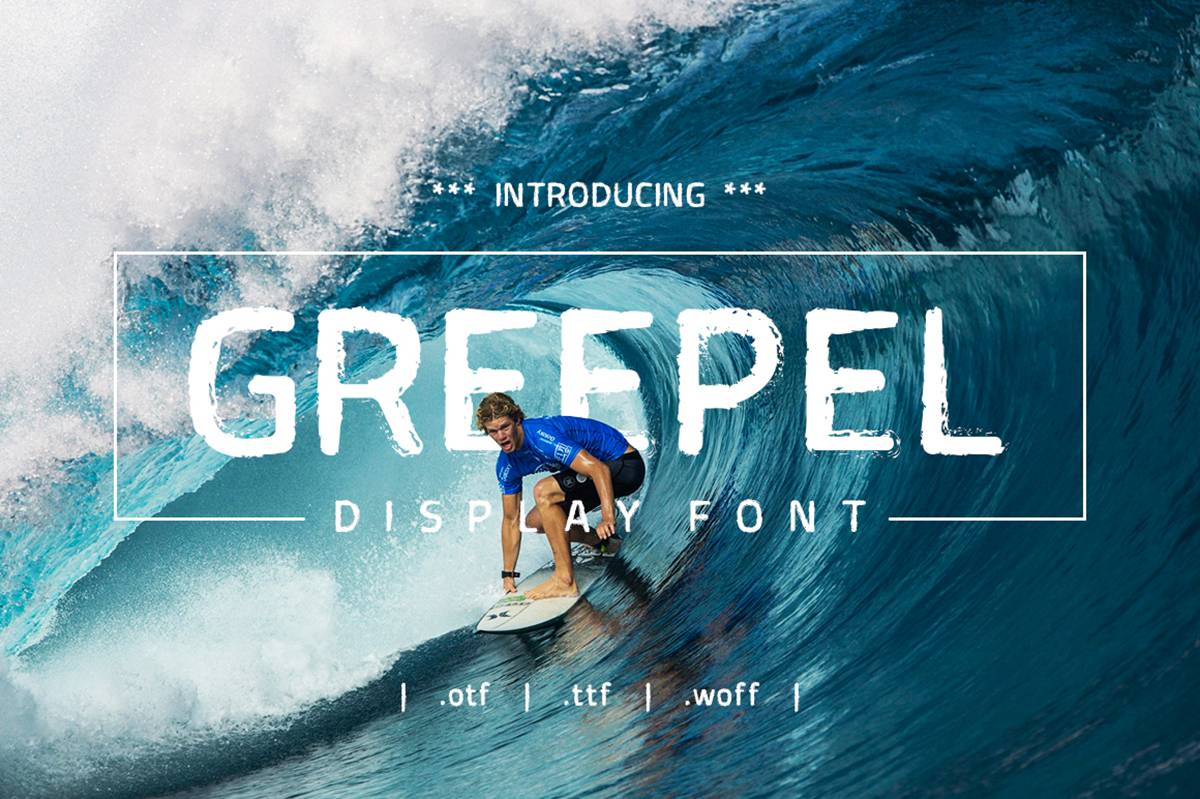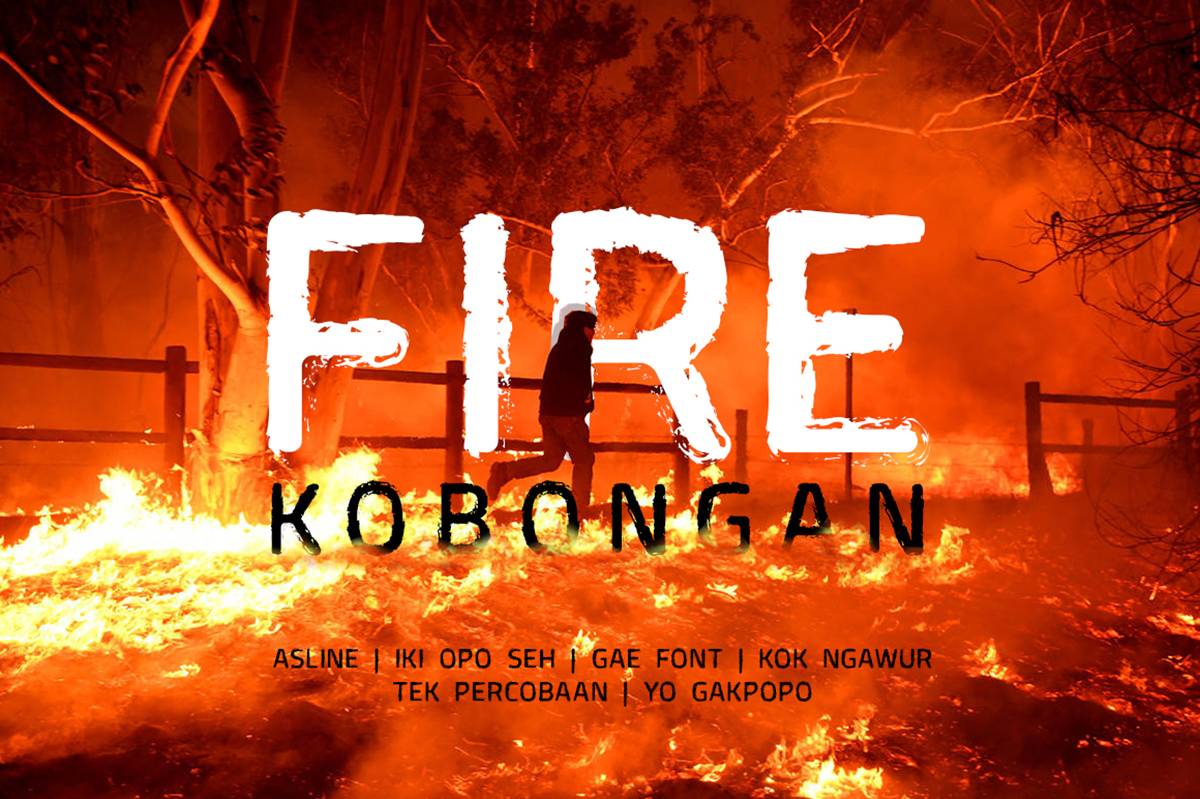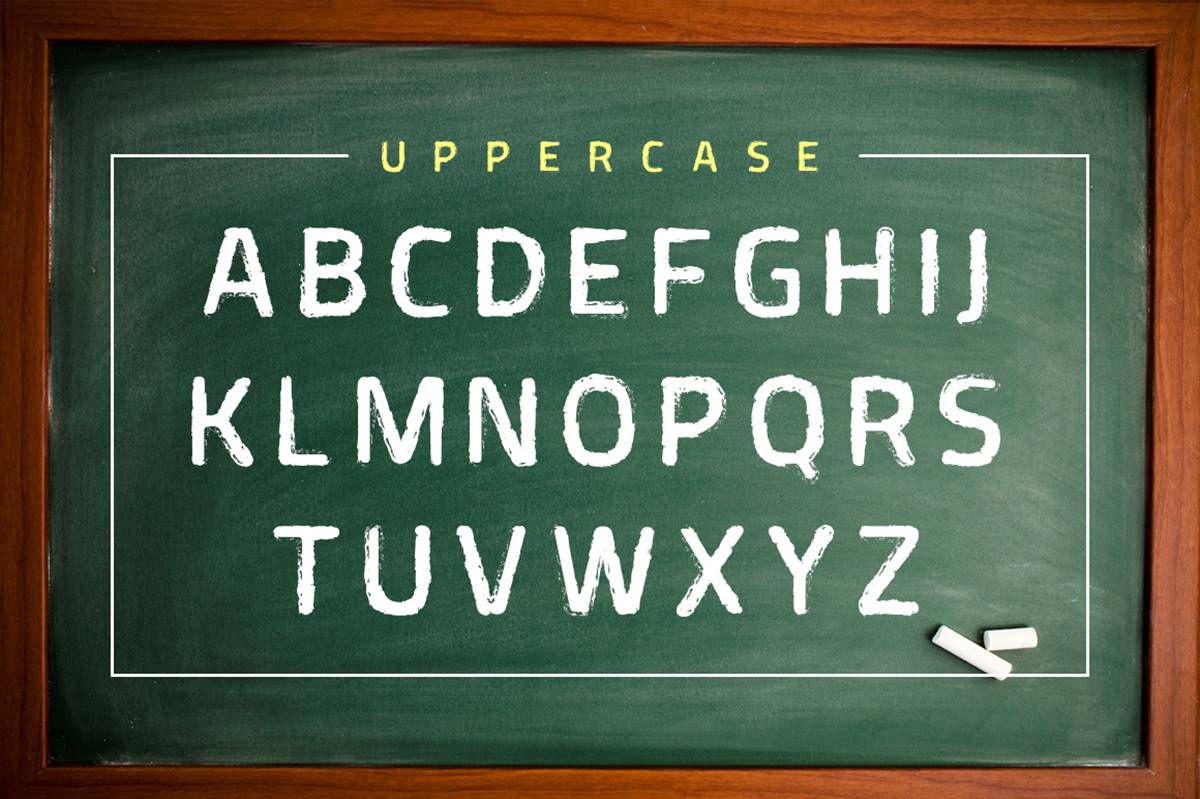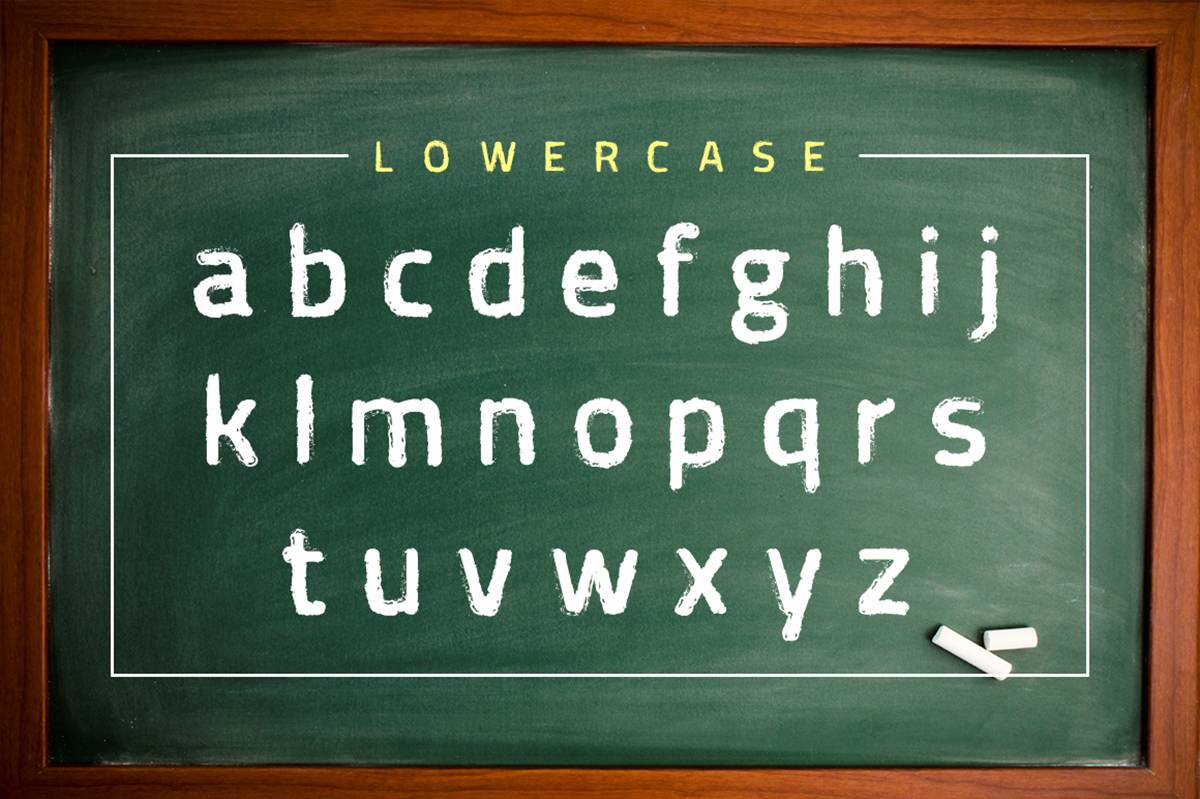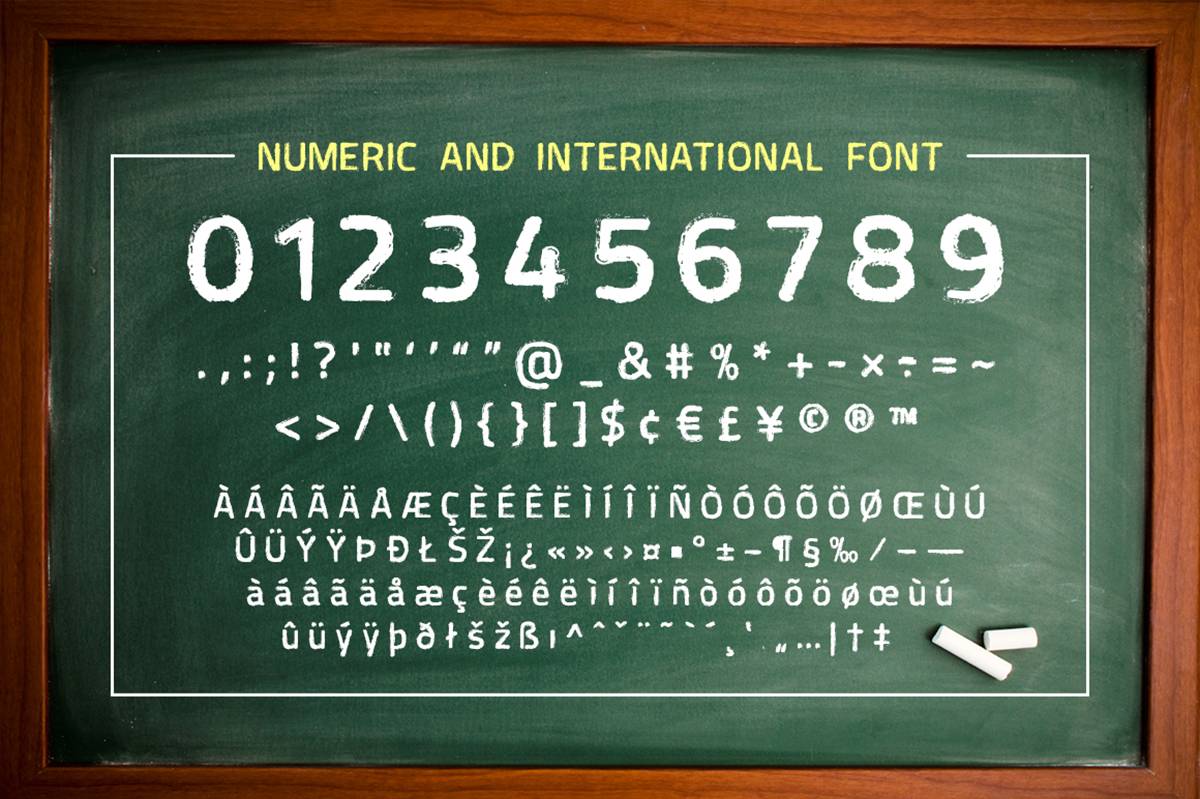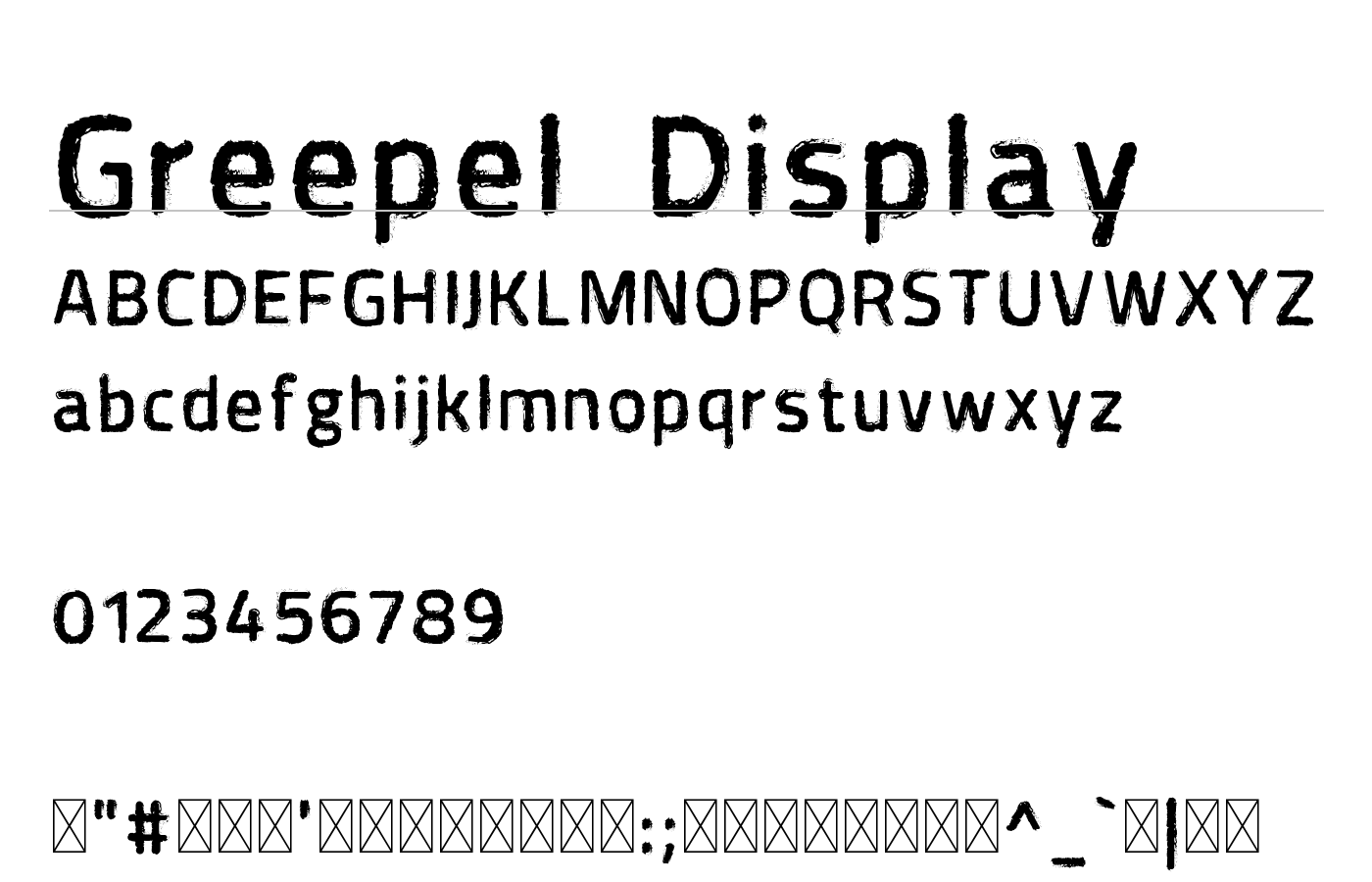
Greepel is a rough, distressed sans serif font with a monospaced feel, featuring irregular, textured strokes that give it a handcrafted, grunge aesthetic. Its informal and edgy style makes it ideal for creative projects, posters, or branding that seeks a bold, vintage, or rebellious vibe. This font works best in headlines and display use where its unique character can stand out and add personality.
Greepel Font
About Greepel Font